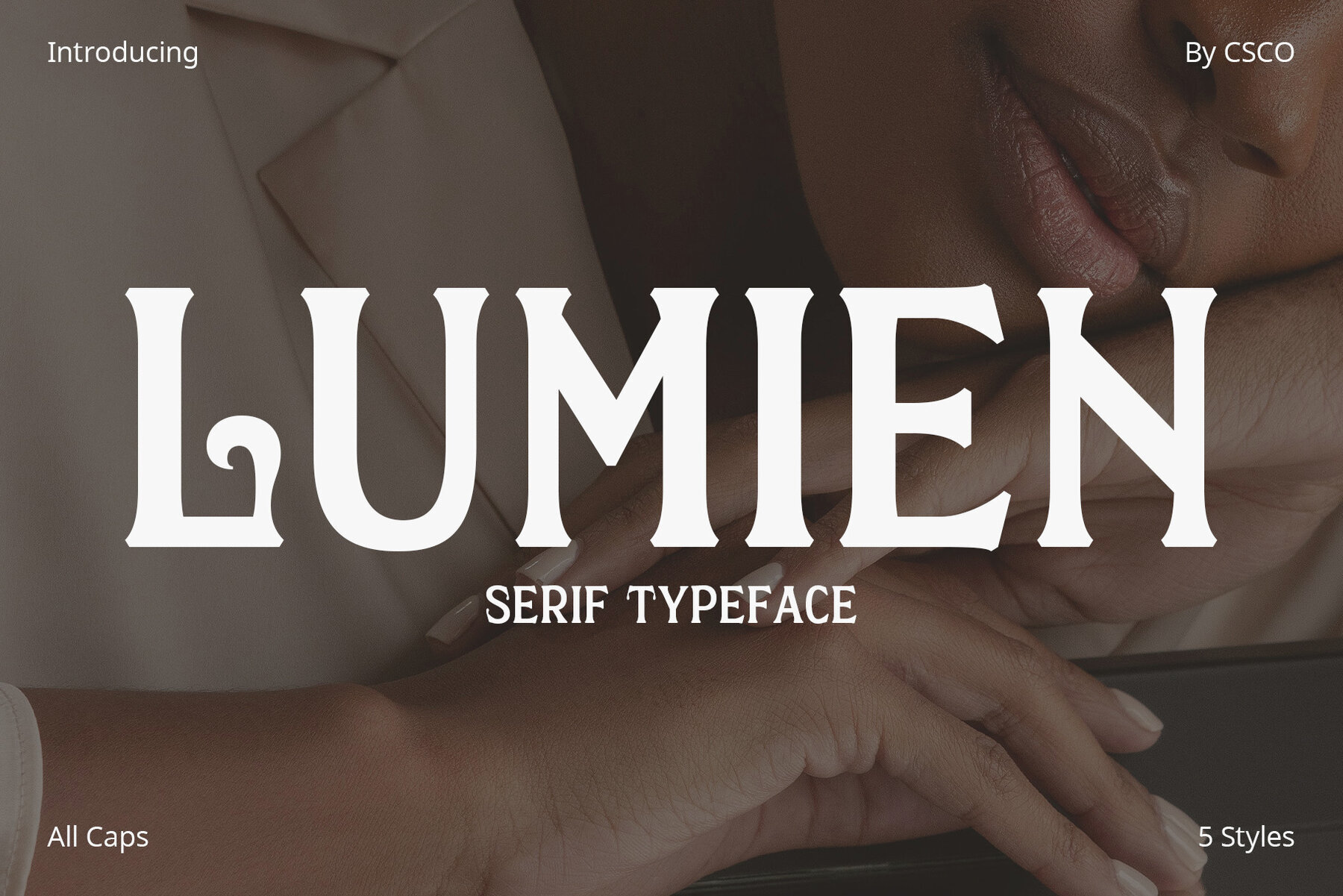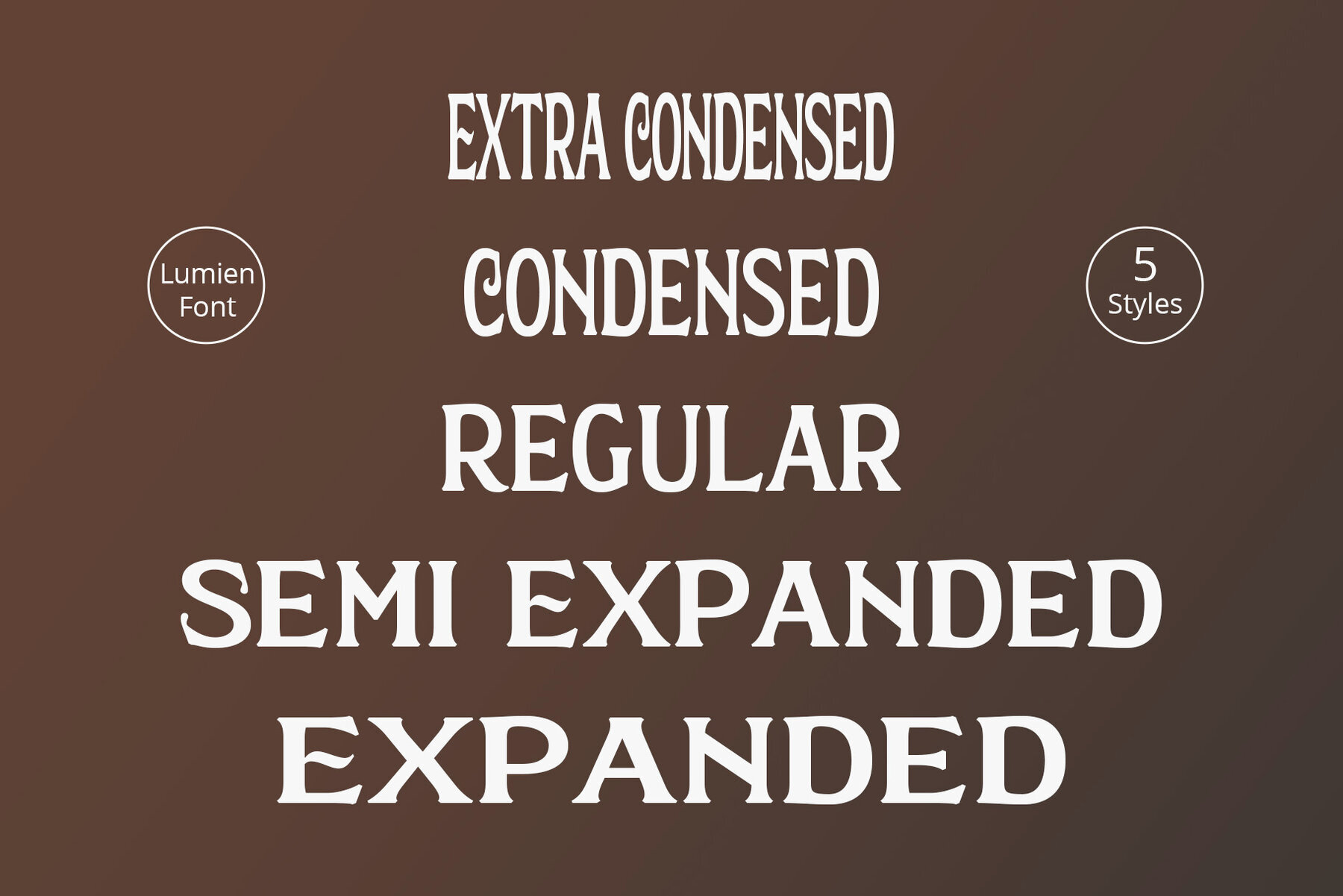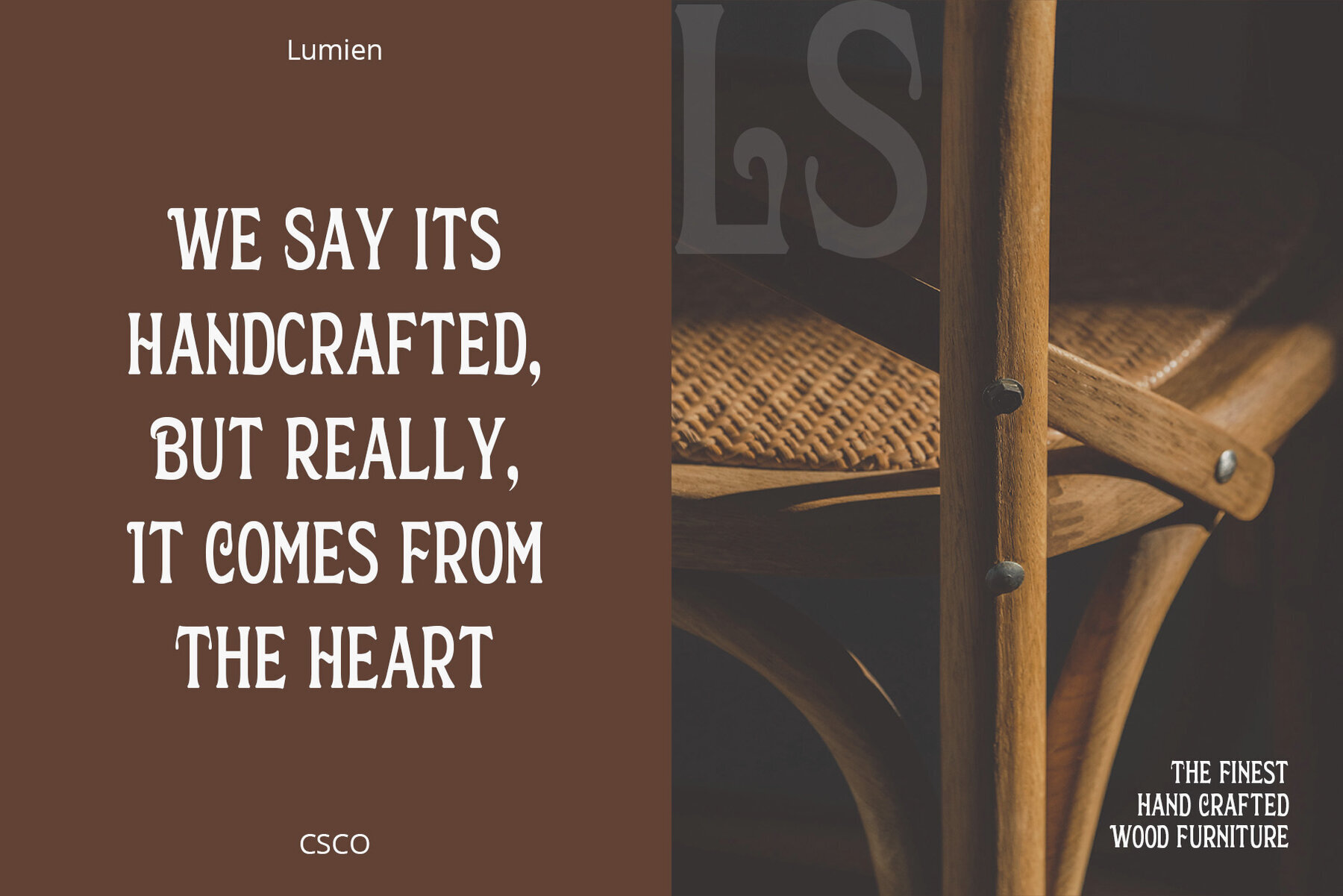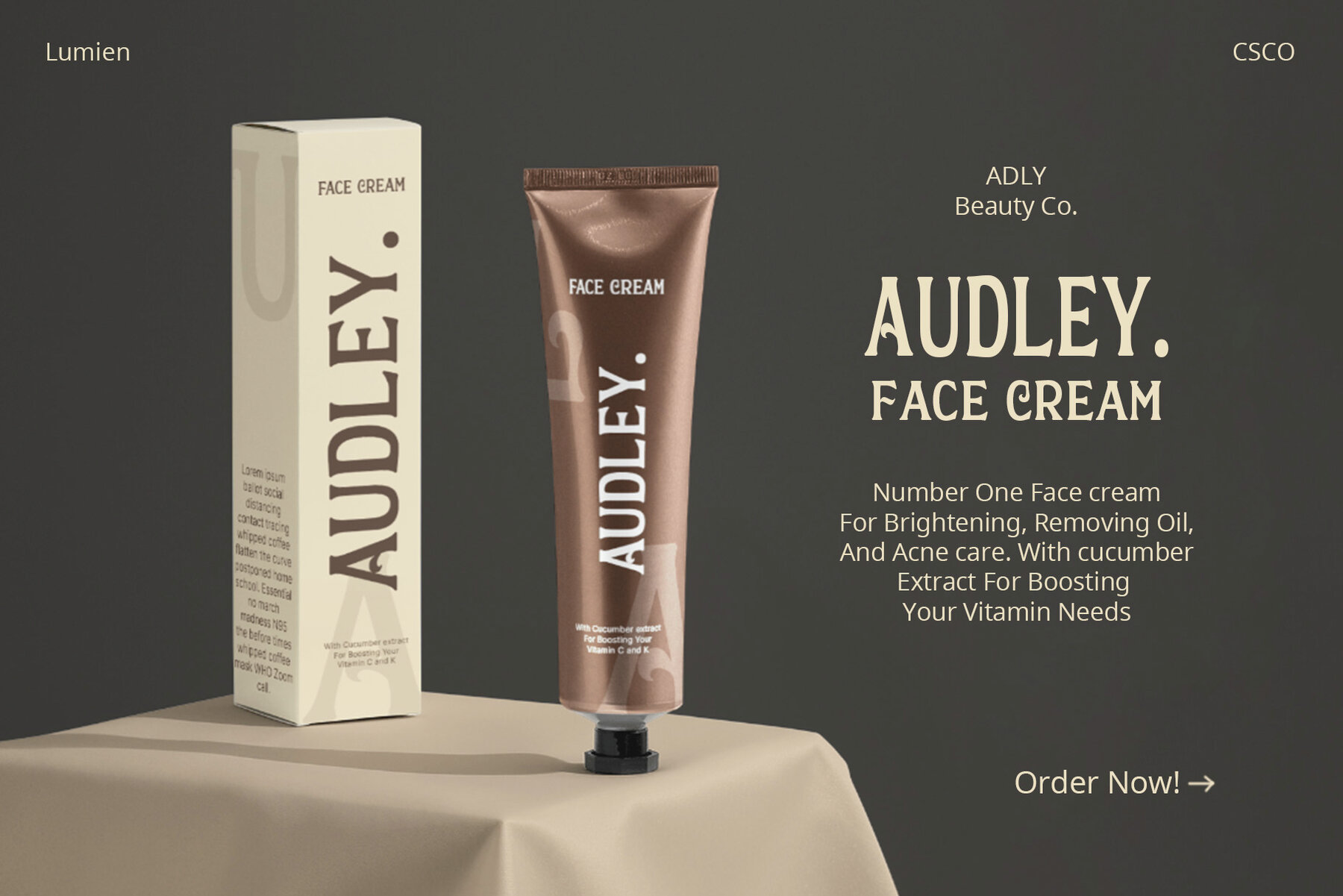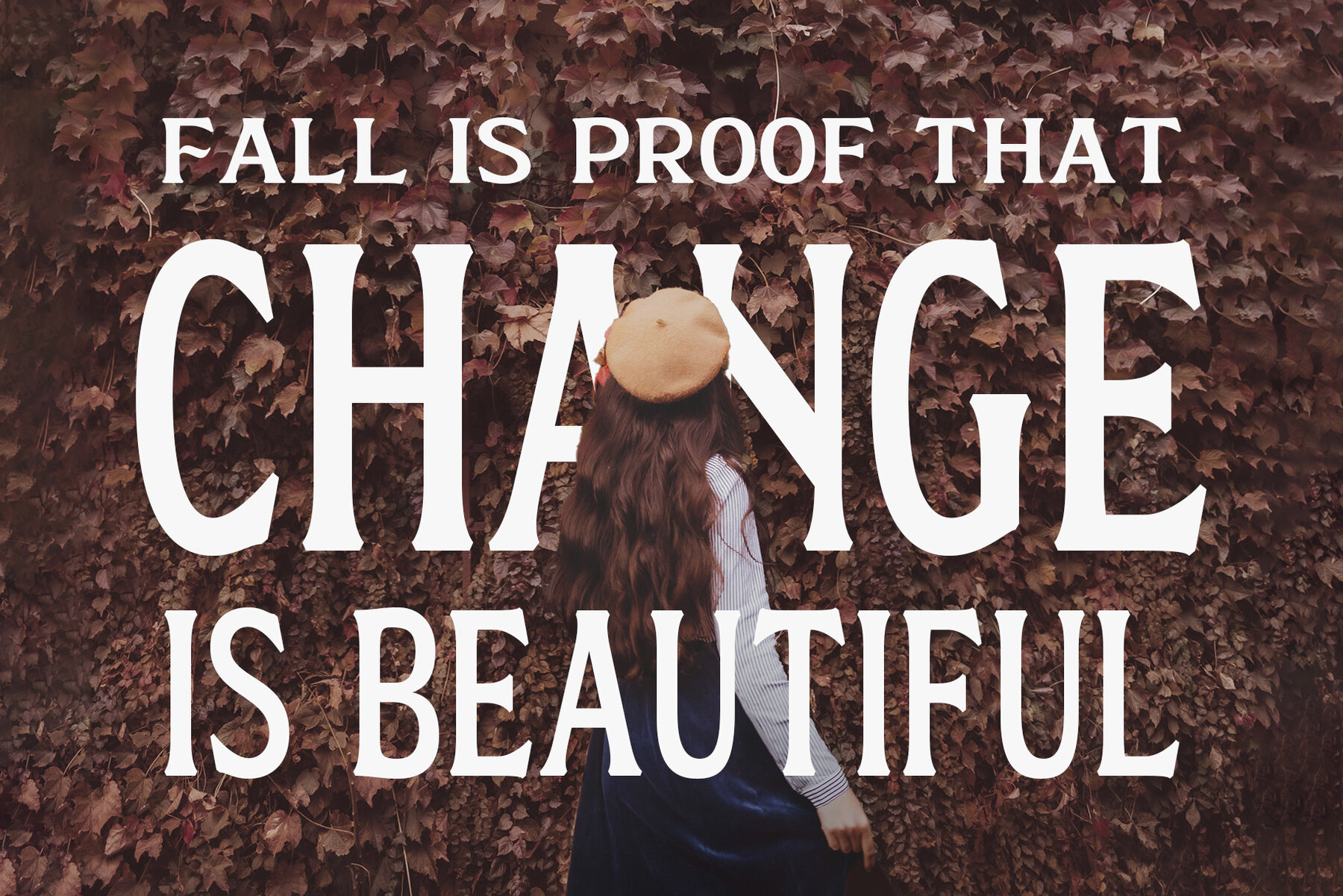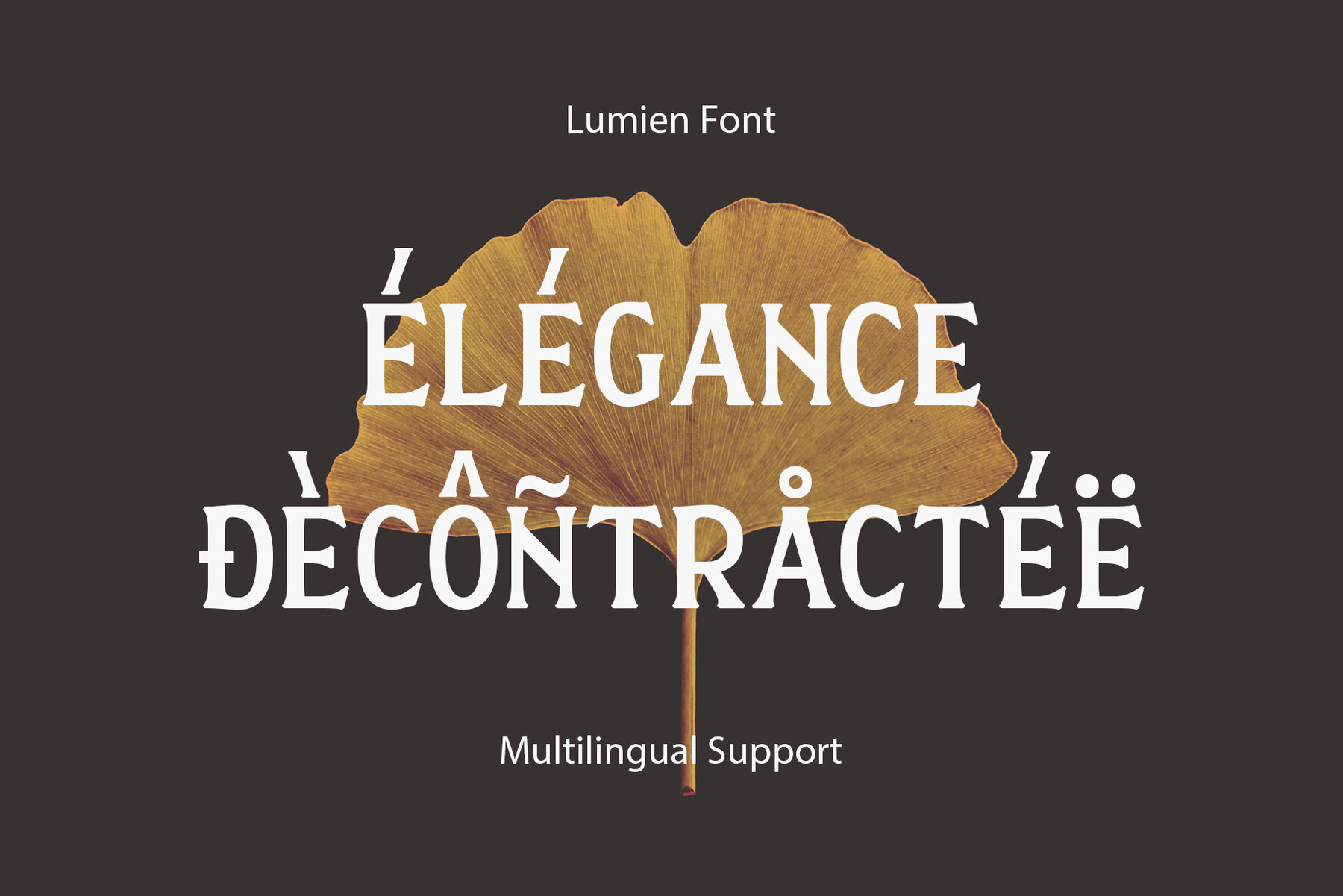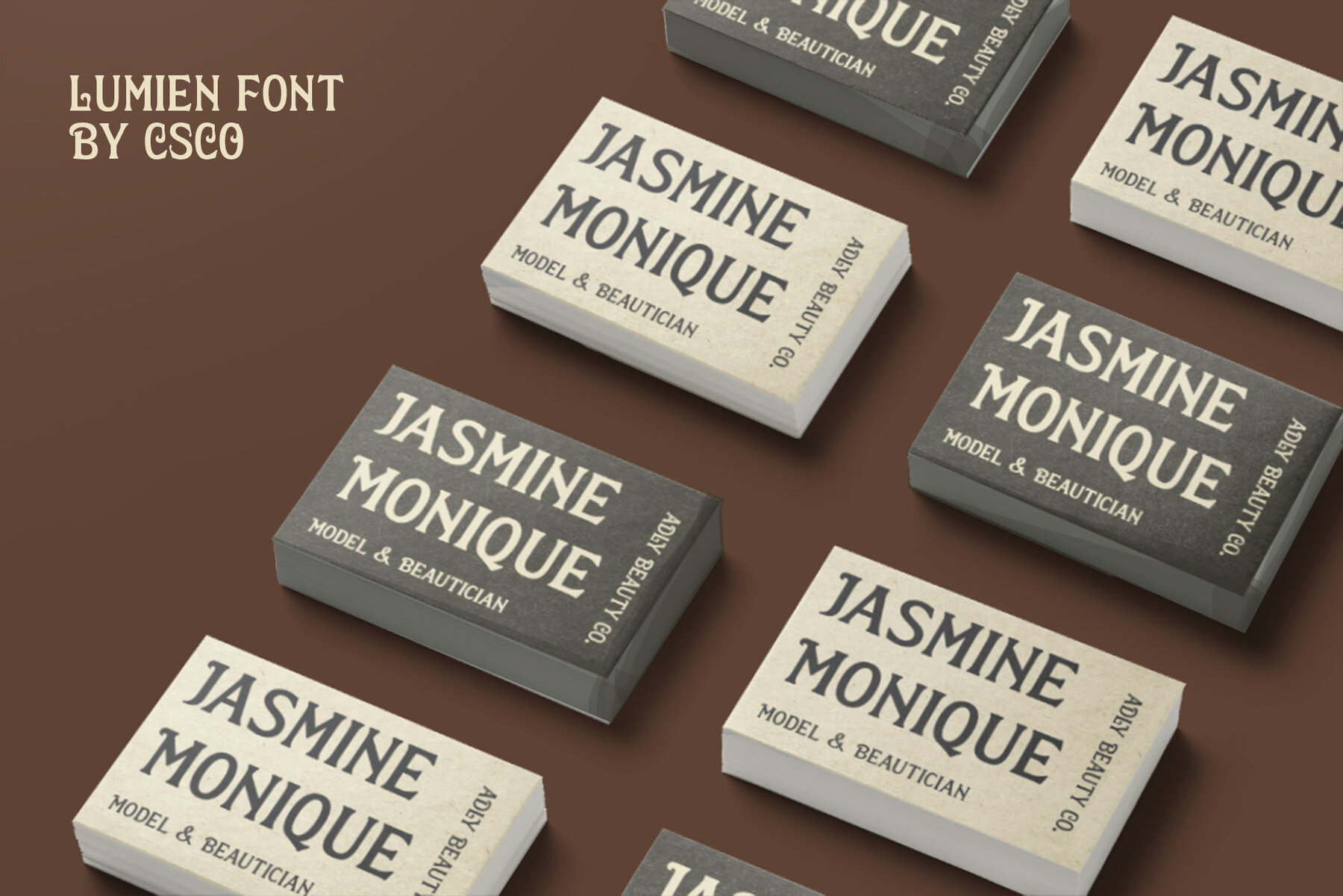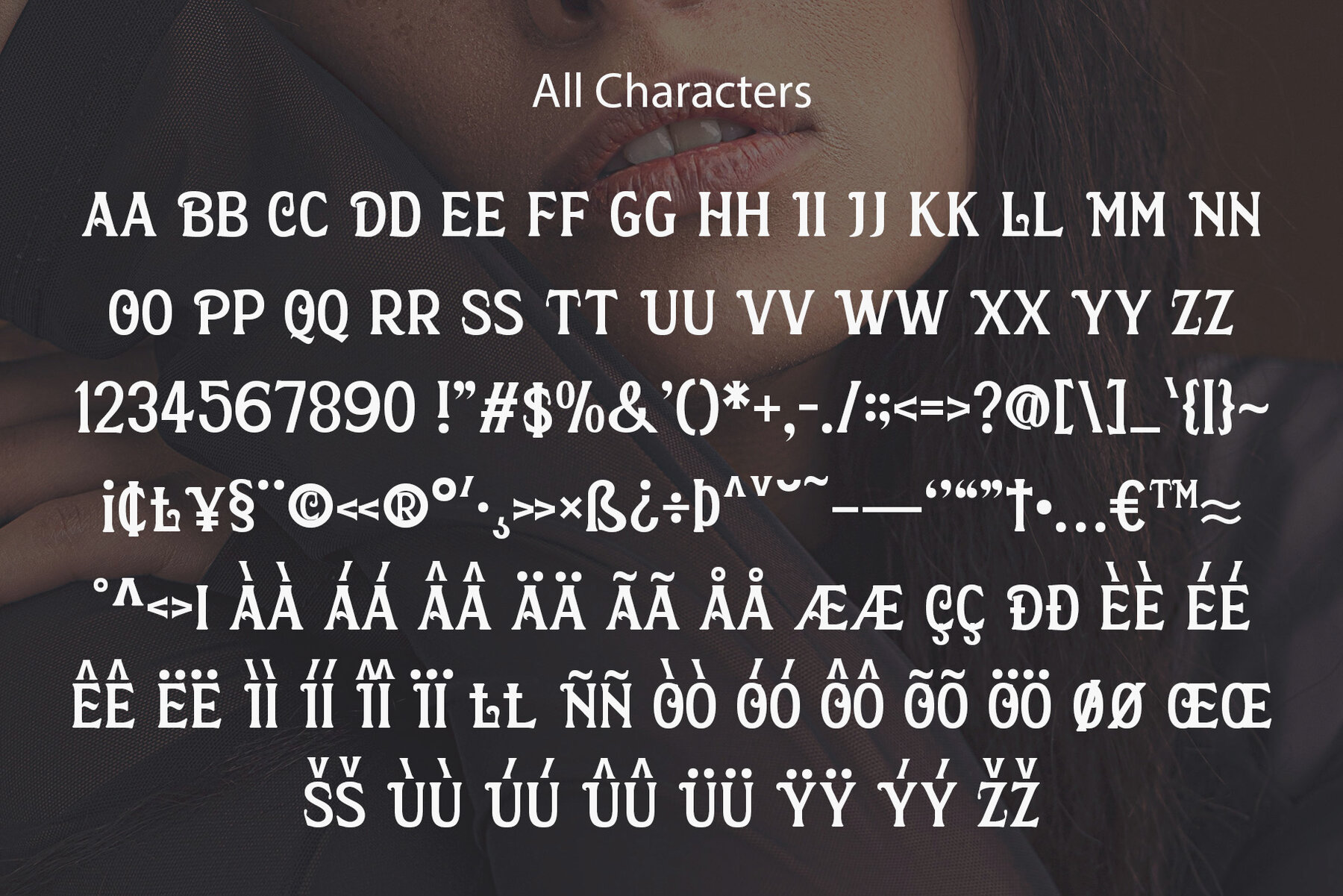
Lumien Font
Lumien is a captivating all-caps display serif font that exudes elegance and sophistication. Its timeless design makes it a versatile choice for various applications. Lumien boasts a classic serif design with all-capital letters. Its clean lines and sharp edges give it a modern yet timeless appeal, making it suitable for a wide range of display projects. This font shines in display settings, making headlines, titles, and logos stand out. It’s an excellent choice for branding, editorial design, and high-impact graphics that demand attention.Lumien: Display Serif with All-Caps Elegance
Design and Style
Versatility and Usage